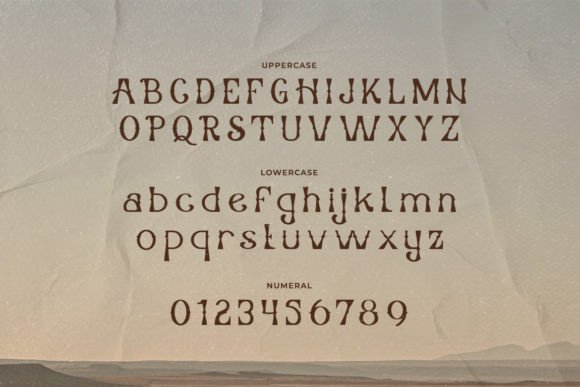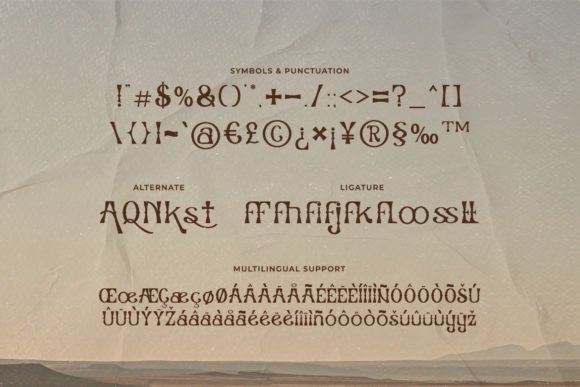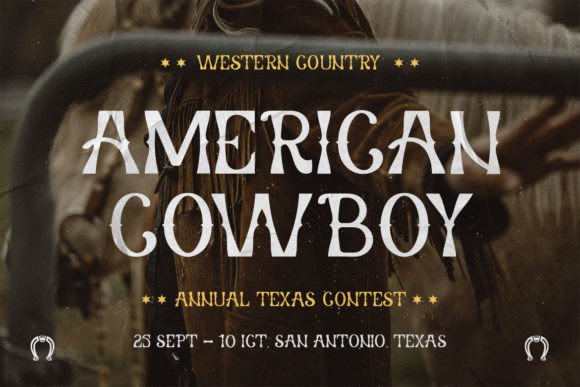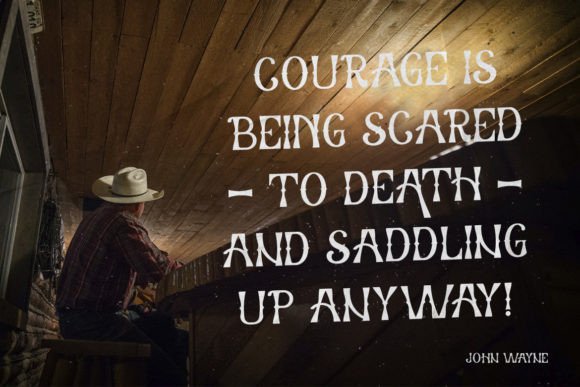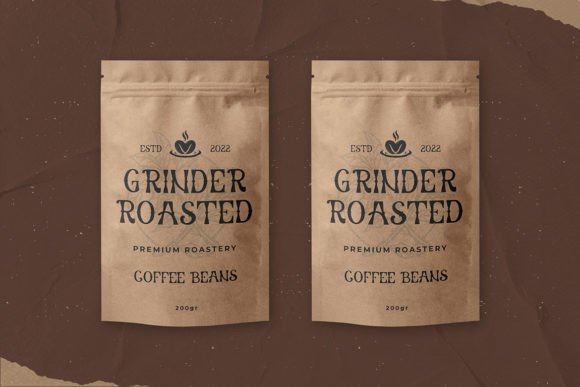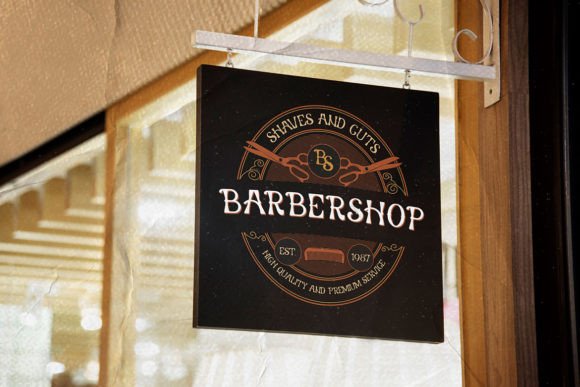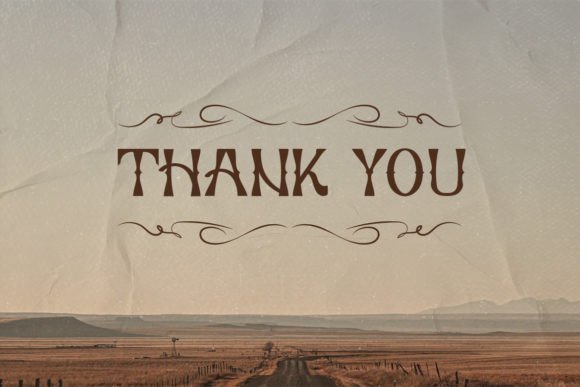
Western of Dead
Western of Dead: A Western-Looking Slab Serif Font
Western of Dead is a western-looking slab serif font that brings retro and grunge character to various creative applications. This versatile typeface works well across different projects, from children’s games to brand identities.
Key Features of Western of Dead
• Western Design: Offers distinctive Old West-inspired letterforms[2].
• Retro Style: Brings vintage character to designs.
• Versatile Appeal: Adapts to both grunge and playful contexts.
• Strong Presence: Creates commanding visual impact[2].
Best Uses for Western of Dead
Thanks to its versatile characteristics, Western of Dead works especially well for:
When using Western of Dead in your designs, keep these tips in mind:
• Try it for headlines or display text to showcase its western style[2].
• Use its retro character for vintage-inspired projects.
• Take advantage of its versatility for both grunge and playful designs.
• Let its distinctive appearance enhance creative projects.
To sum up, Western of Dead is an excellent choice for designers seeking a western-looking slab serif font. Its versatility makes it perfect for various creative projects. Whether you’re creating children’s games, designing book covers, or developing brand identities, Western of Dead offers the perfect blend of Old West charm and modern versatility.
Furthermore, Western of Dead’s distinctive design allows it to shine in contexts where both vintage appeal and creativity are key. From retro designs to playful applications, this font can elevate your projects with its characteristic style. Also, its western-inspired appearance works particularly well in designs that aim to make a bold, thematic impact[2].
In conclusion, Western of Dead truly captures the essence of western design in slab serif typography. Its ability to work across different applications shows how well it can serve various creative needs. Therefore, for those wanting to add a touch of western character to their work, Western of Dead can enhance any design with its distinctive style. Ultimately, it’s perfect for designers aiming to make a retro, western impact across creative projects.